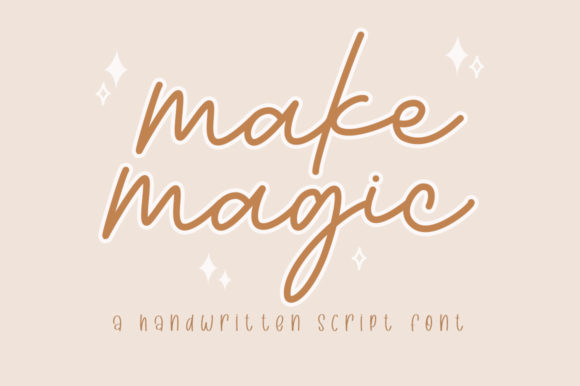
Witness the enchanting allure of Make Magic Font, a script font family that exudes elegance and charm. Designed by the talented Nirmala Creative, this font is a symphony of graceful lines, delicate curves, and enchanting swashes. Its enchanting style is reminiscent of a handwritten love letter, evoking emotions and creating a connection between the writer and the reader.
Immerse yourself in the world of Make Magic Font, where creativity knows no bounds. With its exceptional versatility, this font can effortlessly adapt to a plethora of design projects. Create wedding invitations that exude romance, design greeting cards that convey heartfelt sentiments, or compose digital signatures that reflect your unique personality. Make Magic Font is the perfect choice for adding a touch of magic to your digital creations.
Step into a world of elegance and grace with Make Magic Font. Let your imagination soar as you craft stunning logos that capture the essence of your brand. Design social media graphics that resonate with your audience, captivating their attention and leaving a lasting impression. Create eye-catching flyers and posters that demand attention, ensuring your message reaches its intended audience.
Indulge in the artistry of Make Magic Font, a font that elevates your designs to new heights. Experience the joy of creating personalized quotes and wall art that reflect your inner thoughts and aspirations. Design stunning website headers and titles that captivate visitors and invite them to explore your digital space. Transform your presentations into visual masterpieces, leaving a lasting impression on your audience.
Embrace the magic of Make Magic Font, a font that ignites creativity and captivates hearts. Its timeless beauty and versatility make it an essential tool for any designer seeking to add a touch of enchantment to their projects. Download Make Magic Font today and embark on a creative journey like never before.